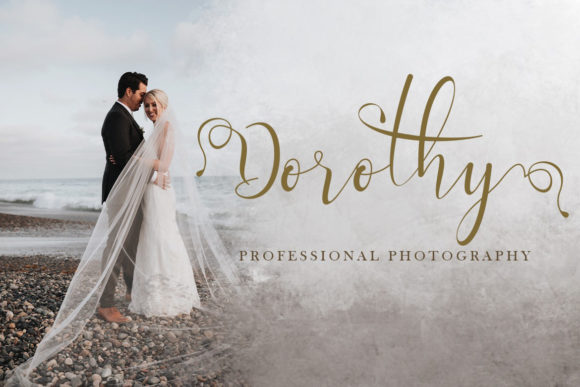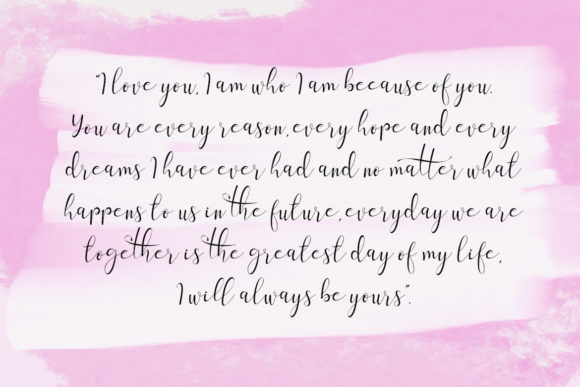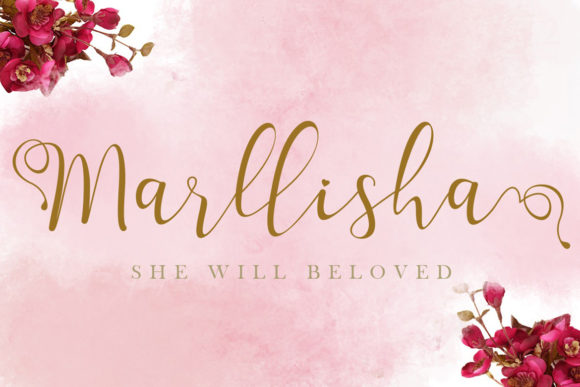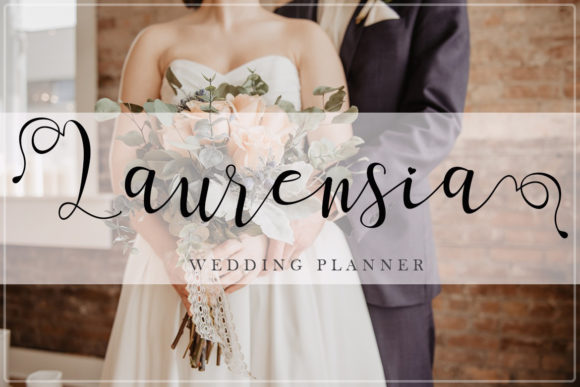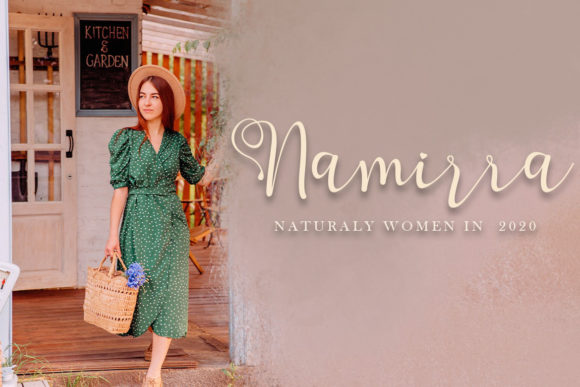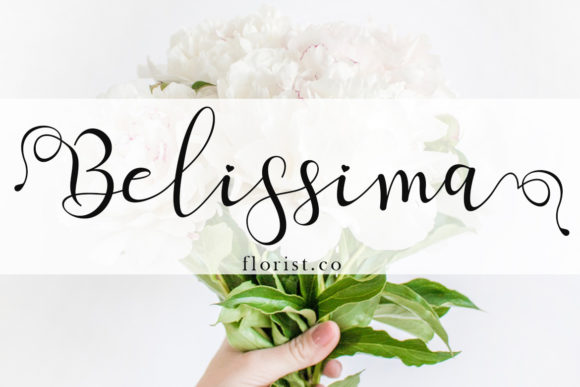
Introduction to Marllisha Font
As a designer, you’ve probably found yourself stuck in front of a blank page, searching for the perfect font to elevate your creative project. The moment you find that one font that speaks to you, it’s like a breath of fresh air – and that’s exactly what we’re about to explore with the stunning Marllisha Font.
Imagine being able to add a touch of elegance and sophistication to your designs with a single click, whether it’s a wedding invitation or a branding project. This is exactly what Marllisha Font offers, with its modern and flowing script style that’s sure to leave a lasting impression. With its PUA encoded features, you’ll have access to a wealth of special features, including alternate glyphs and ligatures, making it a valuable addition to any designer’s toolkit.
Key Features of Marllisha Font
- High-quality design resource for creative projects, ideal for digital and print media.
- Unique, modern font style with a transparent background, allowing for seamless integration with any design.
- Designed with a high resolution, suitable for use in high-quality print materials and digital displays.
- Perfect for designers seeking a modern, stylish font to elevate their creative project, whether it’s a logo, poster, or brochure.
Honest Review: Marllisha Font
I recently came across the Marllisha Font, and I must say it’s a great addition to my design resource library. The font is free to download, which is always a plus for designers on a budget.
What works well about the Marllisha Font is its unique, creative style that can add a touch of elegance to any project. The font is highly customizable, and its transparent background makes it easy to overlay on top of other design elements.
The Marllisha Font is a high-quality design resource that can elevate any creative project. Here are some of its key features:
- High-quality design with a unique, creative style
- Transparent background for easy overlay
Overall, I’m impressed with the Marllisha Font, and I think it’s a great addition to any designer’s library. It’s a high-quality, free design resource that can add a touch of elegance to any creative project.
For the best results, use Marllisha Font in conjunction with a high-quality image or design element. You can also experiment with different font sizes and colors to create a unique look.
Common Use Cases for Marllisha Font
Marllisha Font is perfect for a variety of design projects, including business cards, brochures, and social media graphics. It’s also great for creating eye-catching headings and titles.